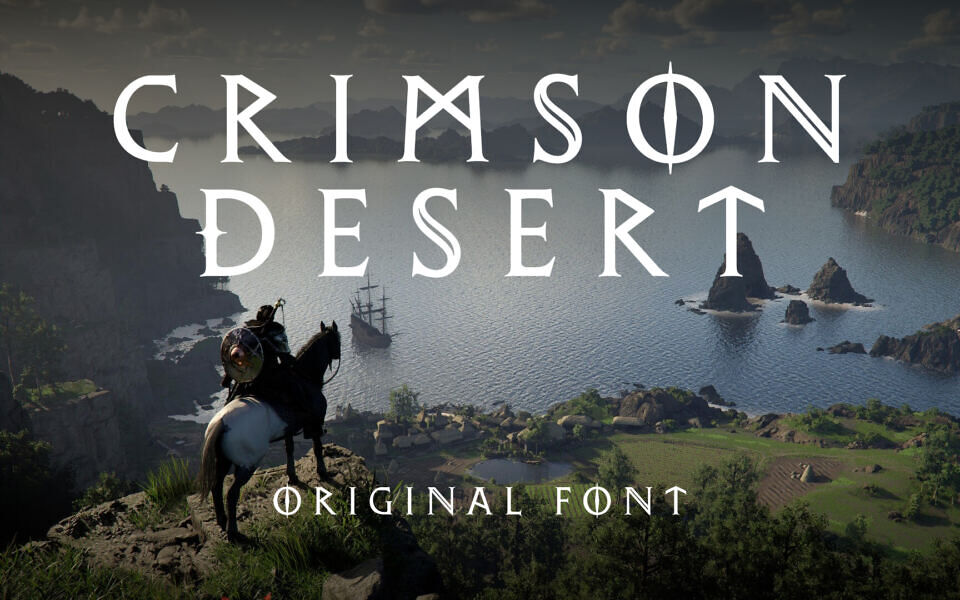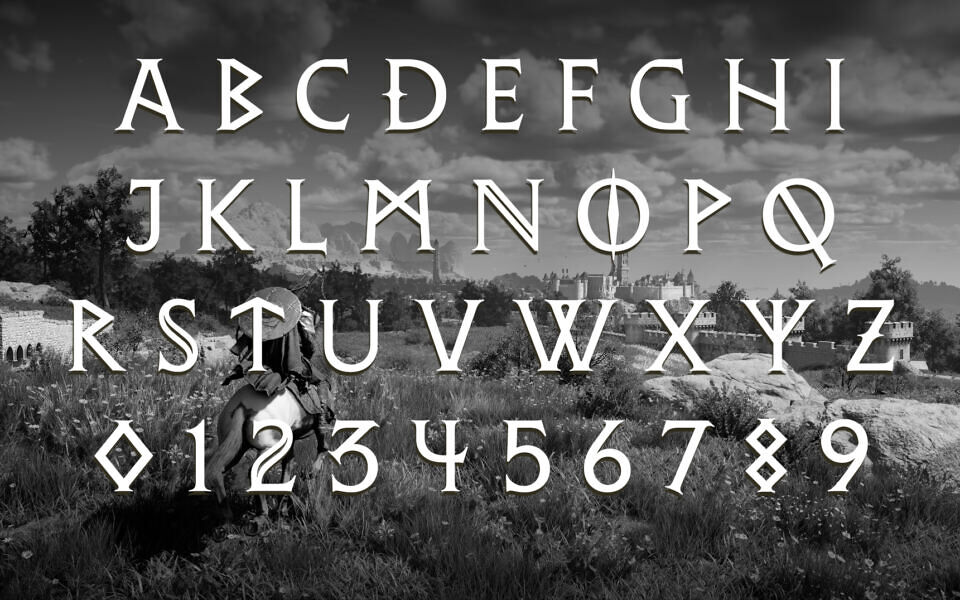
Crimson Desert Font
This is the original logo font of the game “Crimson Desert”, featuring a refined, medieval-inspired serif style with sharp edges and subtle ornamental cuts.
Designed to match the game’s open-world fantasy setting—filled with battles, exploration, and political conflict—it reflects both elegance and ruggedness. Its distinctive glyphs, like the stylized “O,” enhance its cinematic identity. The font is perfect for creating game-related content, video headlines, and other non-commercial applications.